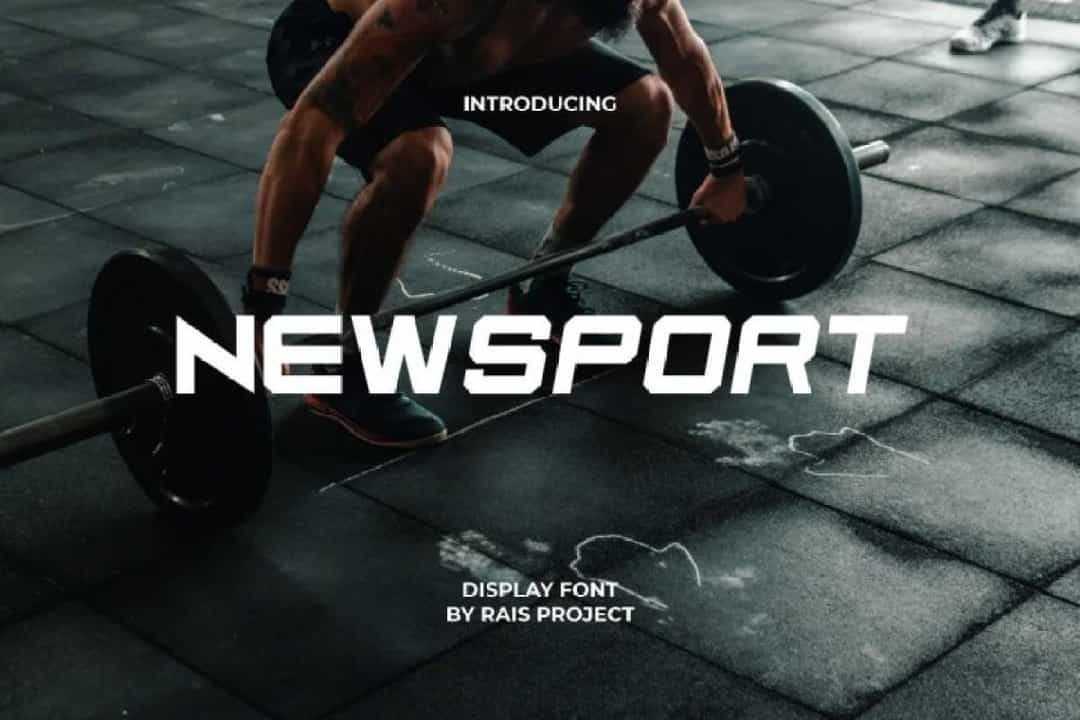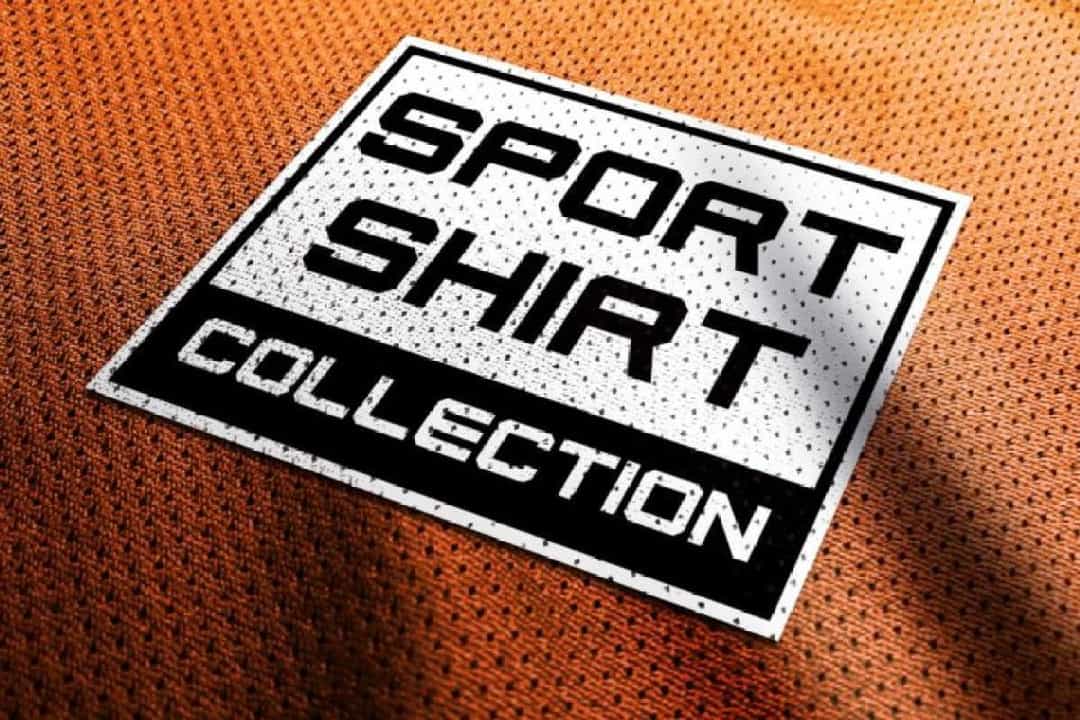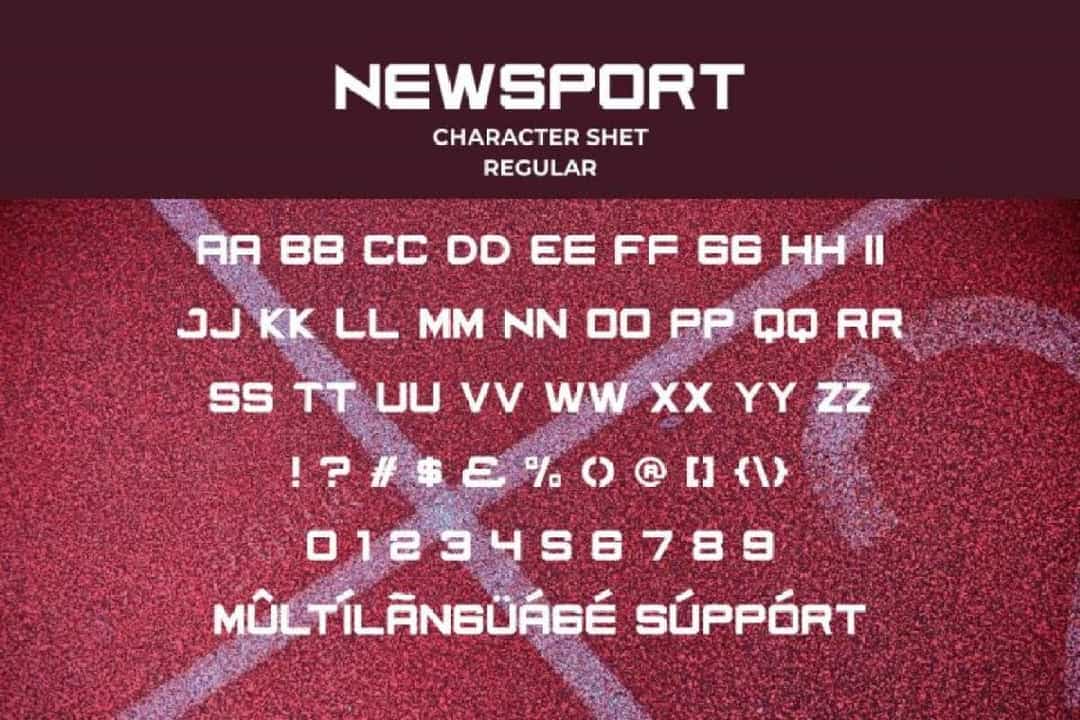
Newsport Font
Newsport Font consists of two styles – Regular and Italic. This font offers strong modern, contemporary, masculine characters designed to suit many applications – headlines, promotions events branding, advertisements publication signboards invitation stationery social media posts labeling or any other tasks that demand original and dynamic designs.